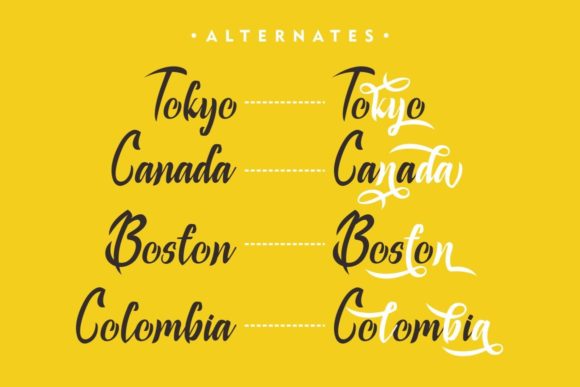
About Rashard Font
Rashard is a natural handwritten brush font. This font is PUA encoded which means you can access all glyphs and swashes with ease!
It will add a luxury spark to any design project that you wish to create!